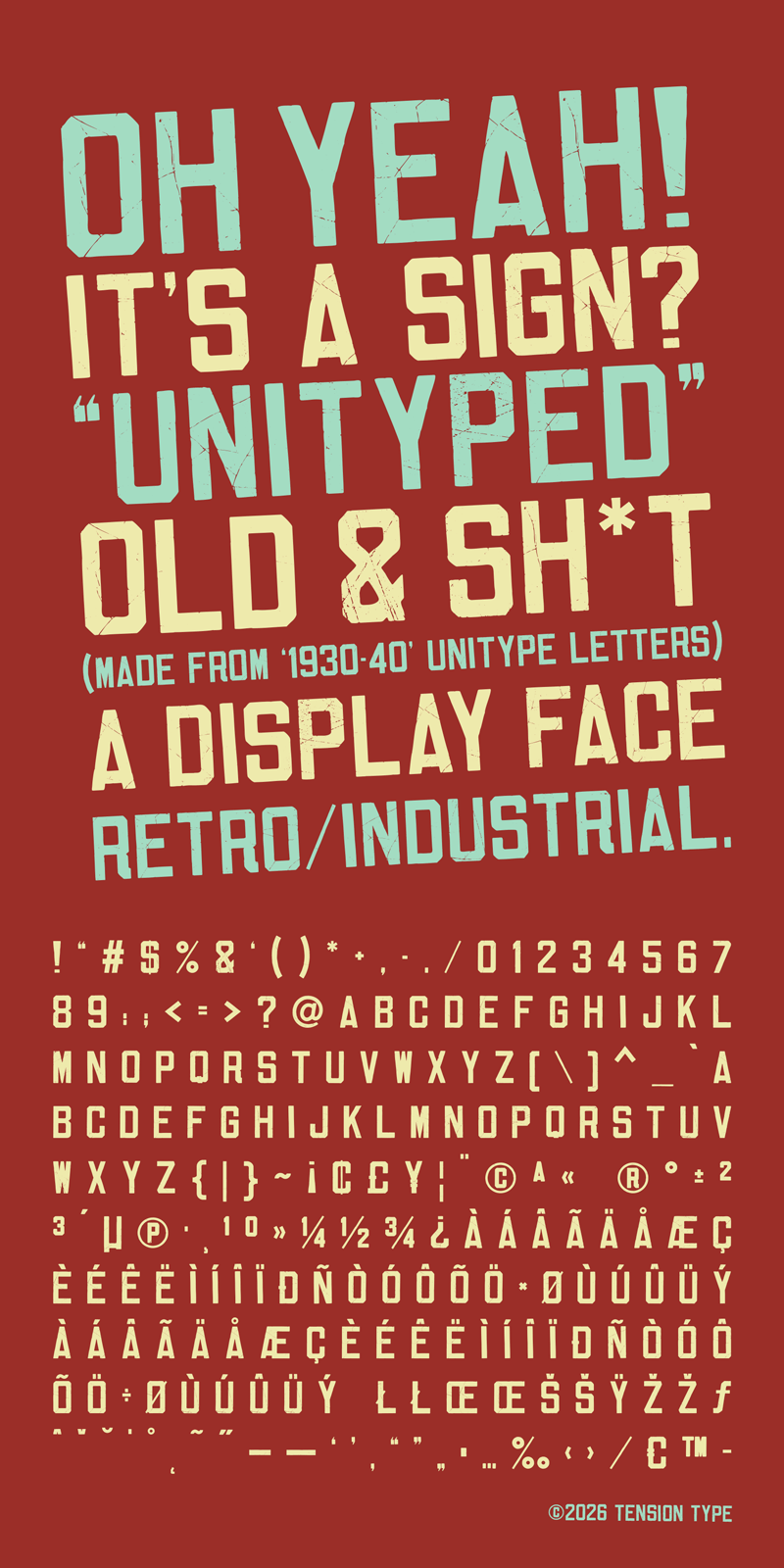
Unityped
Tension Type · Regular · Unityped
I found a bunch of vintage metal sign letters at an antique shop. I really liked the look of them, but a few of the vowels were missing. I bought them and did some research online and found images of the missing characters. With a bit of time I was able to complete the basic latin for this font. Best used for display of course. The letters were originally used for outdoor road signs.